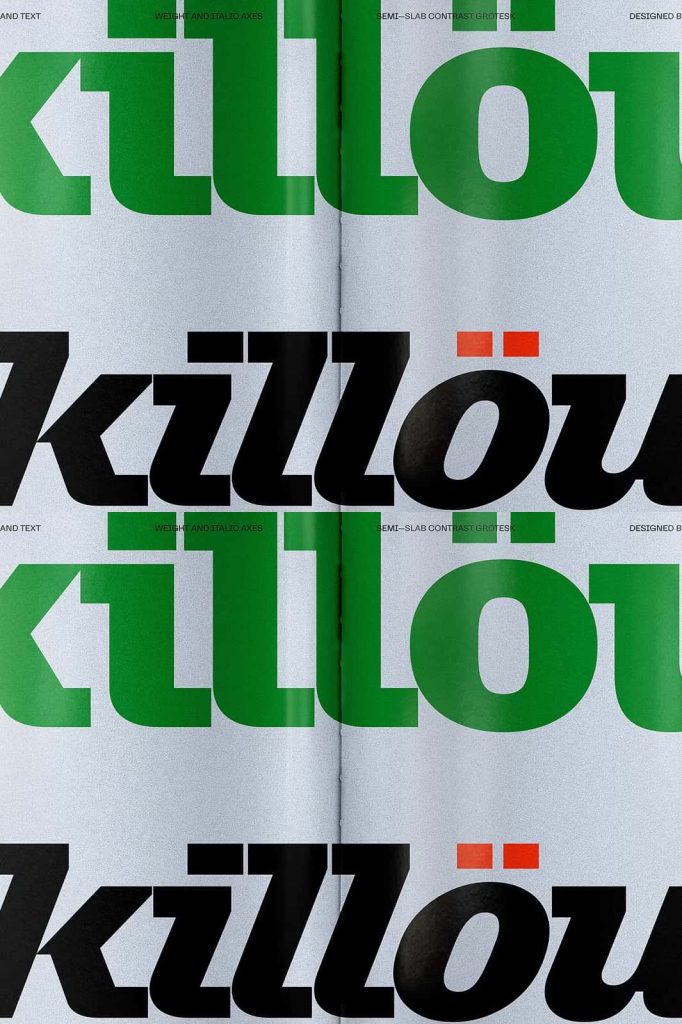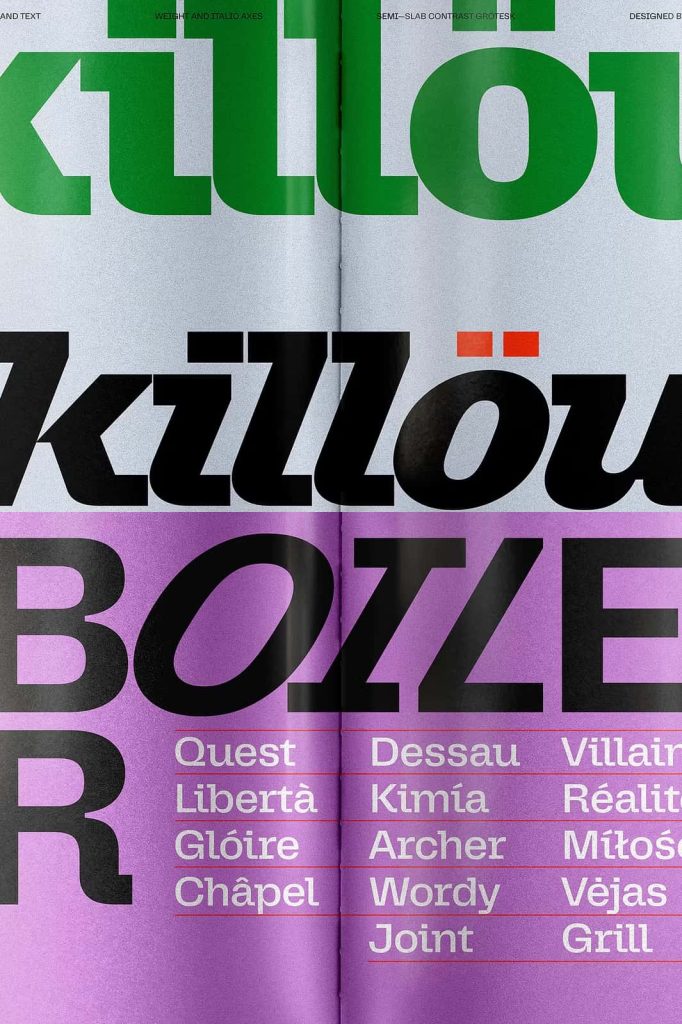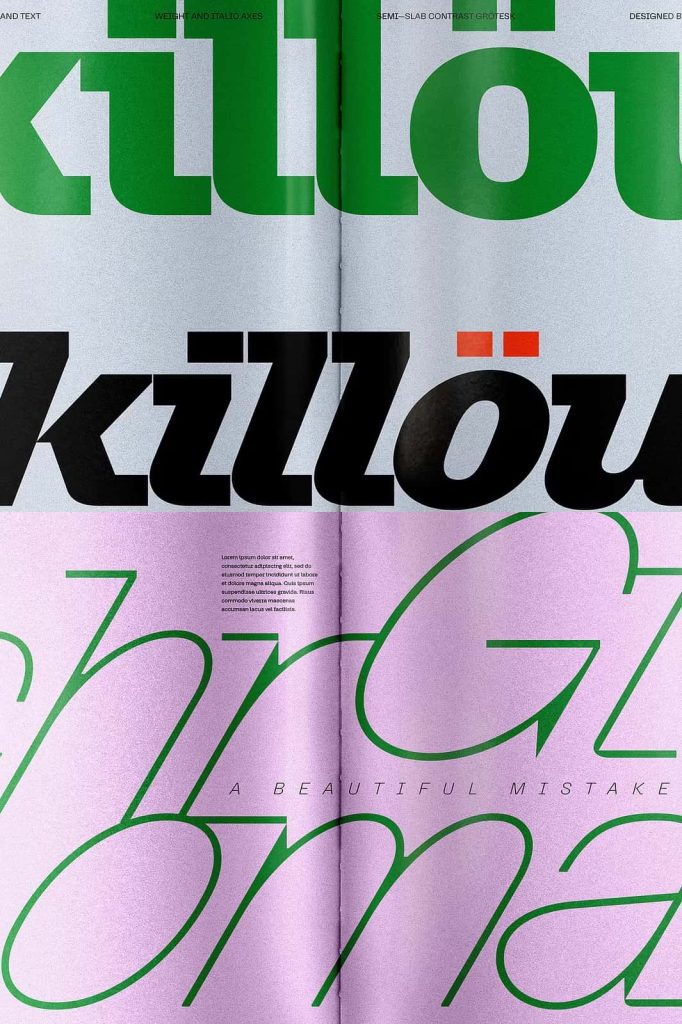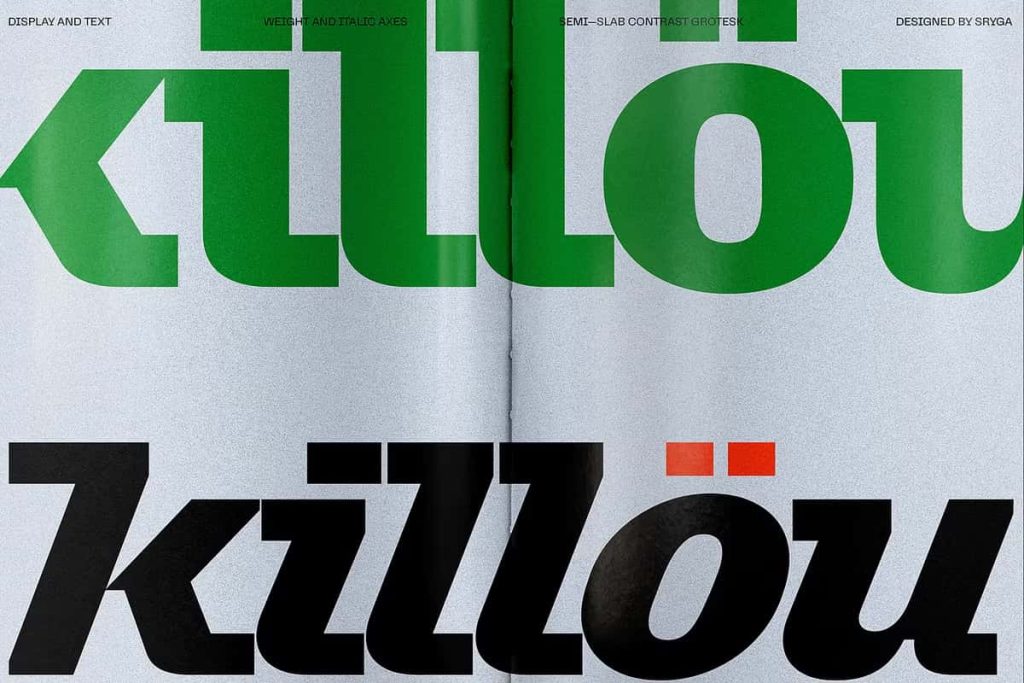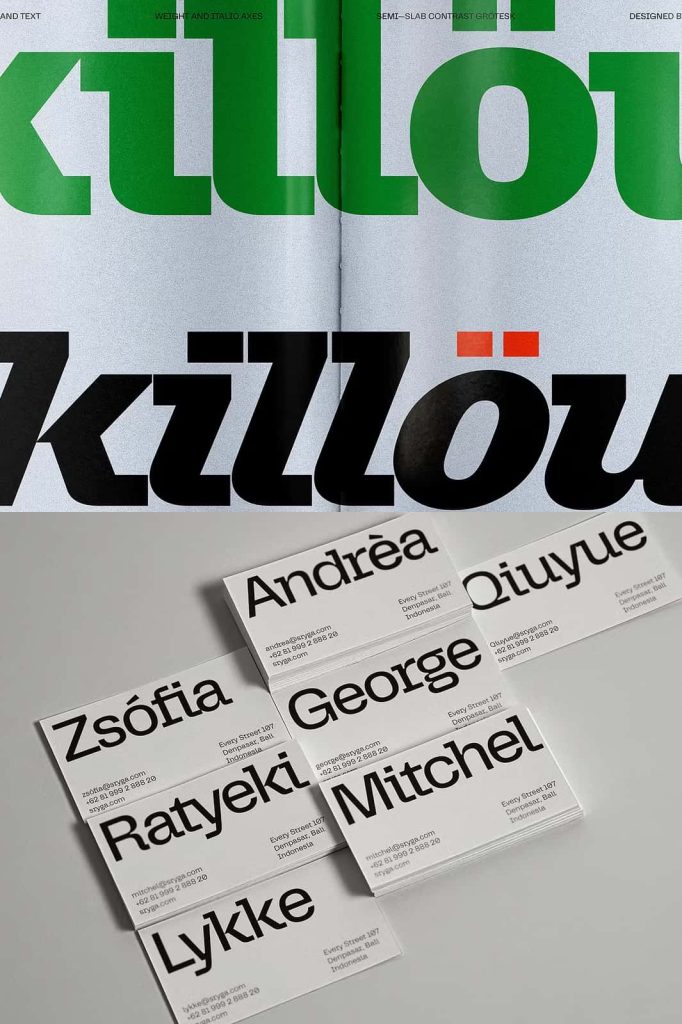
Killou Font – A Bold Semi-Slab Typeface That Breaks Traditional Design Rules
Killou Font is not a typeface that quietly follows conventions. Instead, it challenges the standards of modern typography by combining the mechanical precision of classic monospaced typewriter fonts with the flexibility and visual rhythm of proportional letter spacing. The result is a distinctive display typeface that feels powerful, expressive, and refreshingly original.
Designed for creators who want their work to stand apart, Killou introduces bold, wide-set characters with confident semi-slab details that instantly command attention. Every letter carries a sense of structure while maintaining a natural flow that feels dynamic rather than rigid. This unique balance makes Killou an ideal solution for projects that demand personality without sacrificing readability.
Inspired by Typewriter Heritage with a Contemporary Twist
Traditional monospaced fonts have long been admired for their clean alignment, technical appearance, and timeless character. Killou embraces that heritage but refuses to be limited by it. Instead of forcing every character into identical widths, it introduces proportional spacing that creates a smoother reading experience while preserving the bold personality associated with vintage typewriters.
This thoughtful design approach gives Killou a distinctive visual identity. It feels mechanical yet creative, classic yet modern, making it suitable for designers who appreciate traditional craftsmanship while embracing contemporary aesthetics.
The semi-slab construction further enhances its character by adding subtle weight to each letterform. These slab-inspired terminals create a strong visual foundation without making the typeface appear overly heavy or industrial.
Strong Letterforms That Capture Attention
One of Killou’s defining strengths is its confident presence. Wide proportions, generous spacing, and bold strokes allow headlines and titles to stand out immediately. Whether displayed on a digital screen or printed on large-format materials, every word appears deliberate and memorable.
Unlike minimalist fonts that disappear into the background, Killou actively contributes to the visual identity of your design. Its distinctive construction helps communicate confidence, creativity, and originality while remaining versatile enough for both modern and retro-inspired layouts.
The carefully balanced proportions also improve readability, allowing larger headlines to remain clean and visually appealing even when used at oversized display settings.
Perfect for Branding and Creative Identity
Brand identity begins with typography, and Killou provides a memorable foundation for businesses, creative agencies, startups, and independent designers. Its unconventional appearance immediately creates recognition while remaining professional enough for commercial applications.
Whether you’re designing a fashion label, technology brand, gaming project, creative studio, music promotion, or lifestyle product, Killou helps establish a bold visual voice that audiences remember.
The font performs exceptionally well across logos, wordmarks, visual identities, promotional campaigns, and digital branding materials where originality becomes a competitive advantage.
Ideal Applications Include:
- Logo design
- Brand identity systems
- Editorial headlines
- Magazine covers
- Poster design
- Album artwork
- Book covers
- Packaging design
- Website headers
- Advertising campaigns
- Creative presentations
- Motion graphics
- Product labels
- Merchandise design
A Typeface Built for Modern Designers
Today’s creative professionals often search for typography that feels unique without becoming difficult to use. Killou answers that challenge by delivering an eye-catching style that remains practical across multiple design disciplines.
Its proportional spacing improves overall composition while maintaining the distinctive attitude inspired by classic monospaced fonts. This balance makes it easier to combine Killou with supporting text fonts, creating layouts that feel both expressive and organized.
Whether paired with minimal sans serifs or elegant serif fonts, Killou naturally becomes the focal point of the composition while supporting a harmonious overall design.
Create Designs That Refuse to Blend In
Many typefaces aim to be neutral, but Killou embraces individuality. Every character communicates confidence through bold construction, wide proportions, and carefully crafted semi-slab features that give each word a memorable visual rhythm.
This makes the font especially valuable for projects where first impressions matter. Posters become more striking, branding feels more recognizable, packaging captures greater attention on retail shelves, and digital content gains stronger visual impact across websites and social media platforms.
If you’re searching for a font that delivers strong visual identity, distinctive character, and outstanding versatility, Killou is an exceptional addition to your typography collection. It confidently steps beyond conventional design rules, allowing every project to express originality, creativity, and bold visual storytelling.